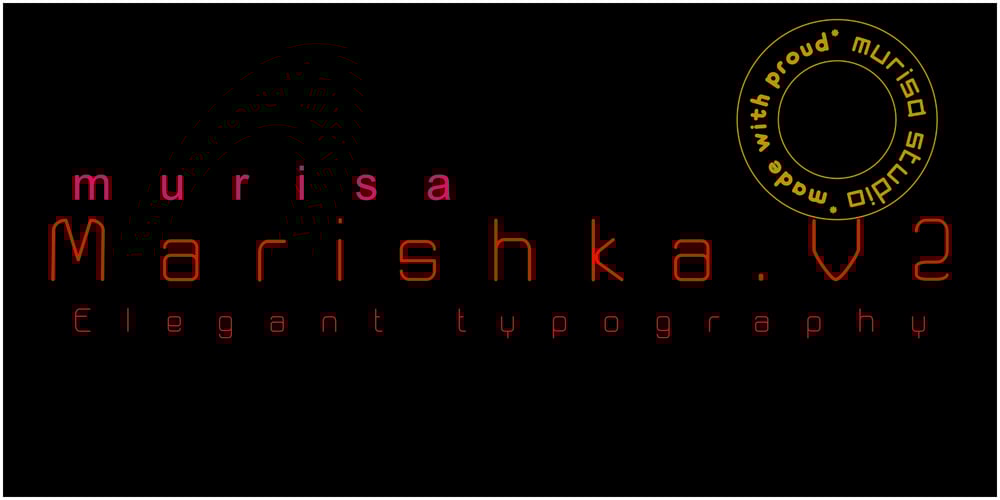
Murisa Marishka
Murisa Marishka font
Murisa Marishka Font Family was designed by Lili Sadili and published by Murisa Studio. Murisa Marishka contains 4 styles and family package options. marishka is our best offering for people like you. If you want a bold and elegant font, then this font is perfect for you. Use this font in your products and designs, and get a charming elegant impression. Beautiful, firm, authoritative, that’s what you get. Have it now.